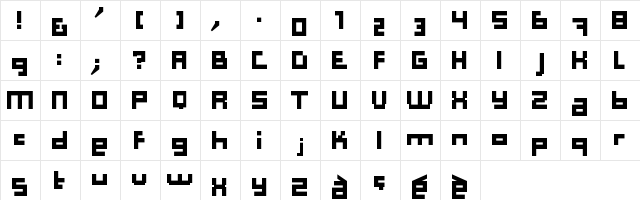
Computer Aid Regular
Design Context for Computer Aid Typeface
Computer Aid takes a measured approach to typography — its balanced proportions and neutral character make it a reliable workhorse for both digital and print work.